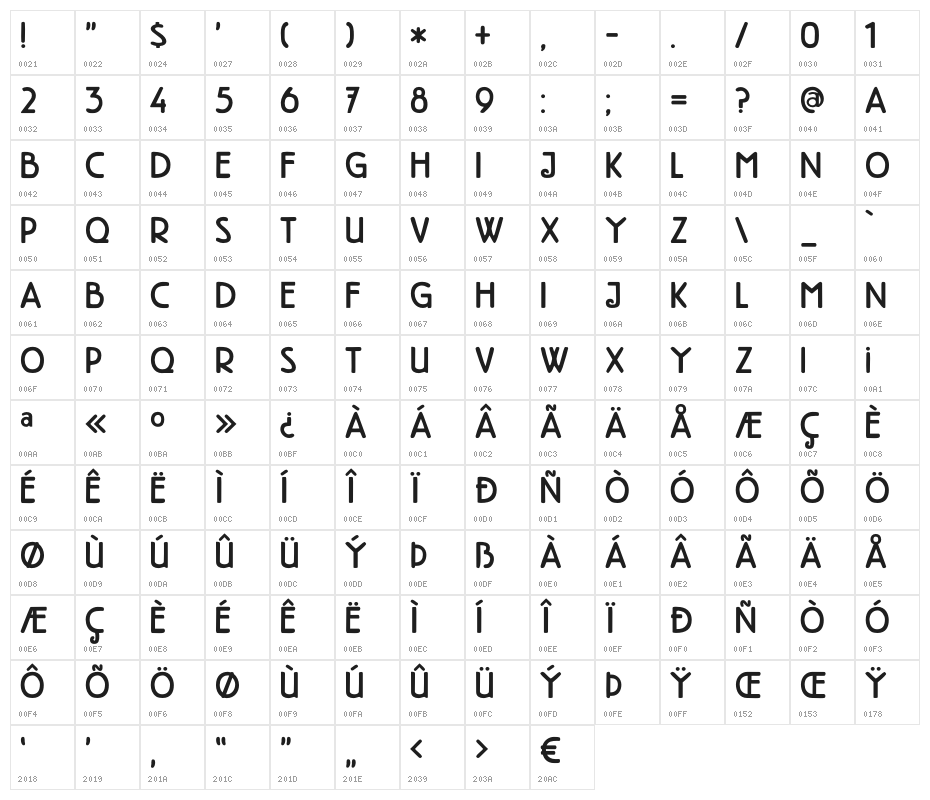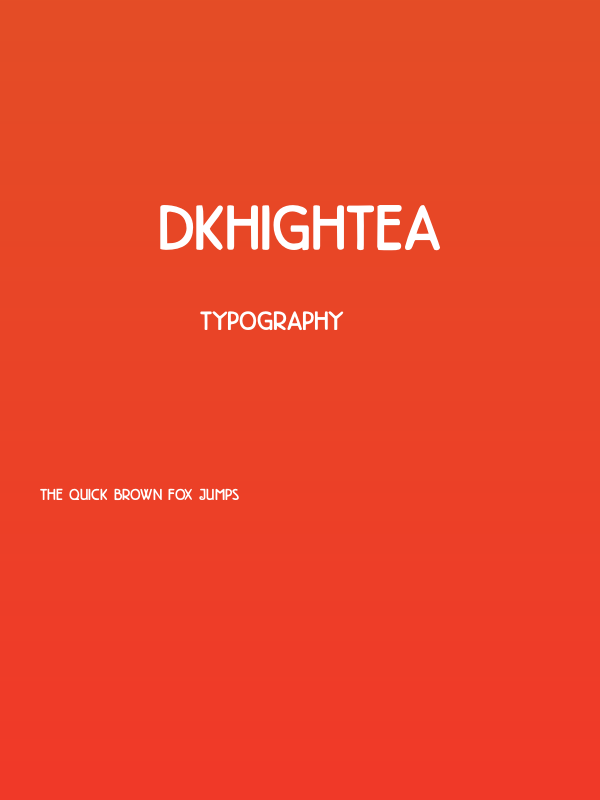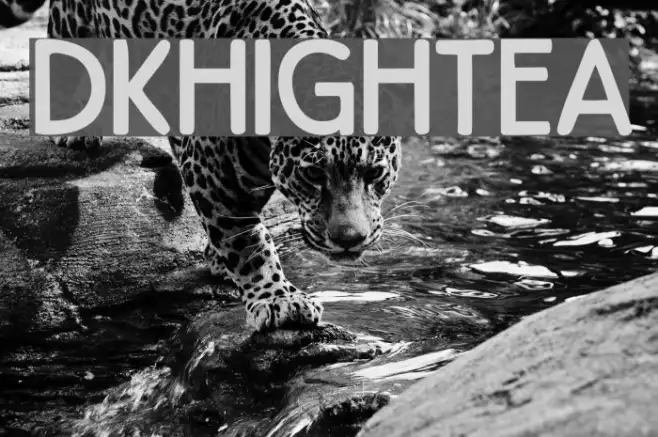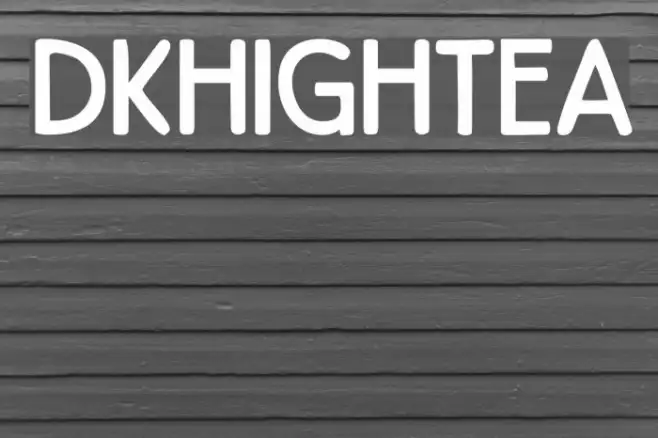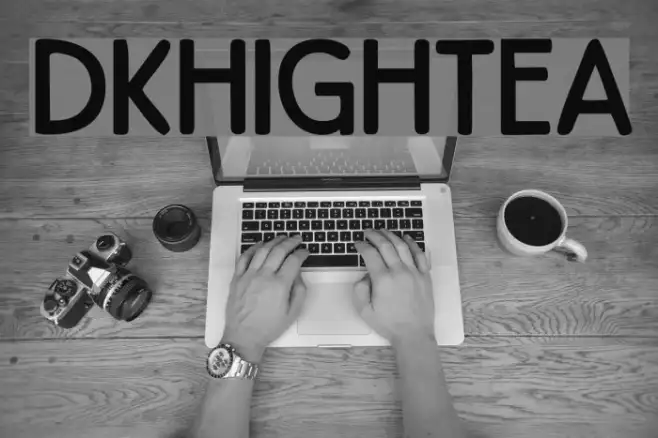
DKHighTea Font
DKHighTea Description
This font features a playful and rounded design, characterized by its smooth curves and friendly appearance. The letters are bold and slightly condensed, giving them a strong presence while maintaining a casual and approachable feel. The uniform stroke width contributes to a clean and modern look, making it versatile for various design applications. The numerals and special characters are consistent with the overall style, ensuring readability and cohesion across different uses. This font is particularly suitable for projects that require a touch of whimsy and warmth.
| Overall Style | Modern, Playful |
| Proposed Projects | Ideal for children's books, playful branding, casual invitations, and social media graphics. |